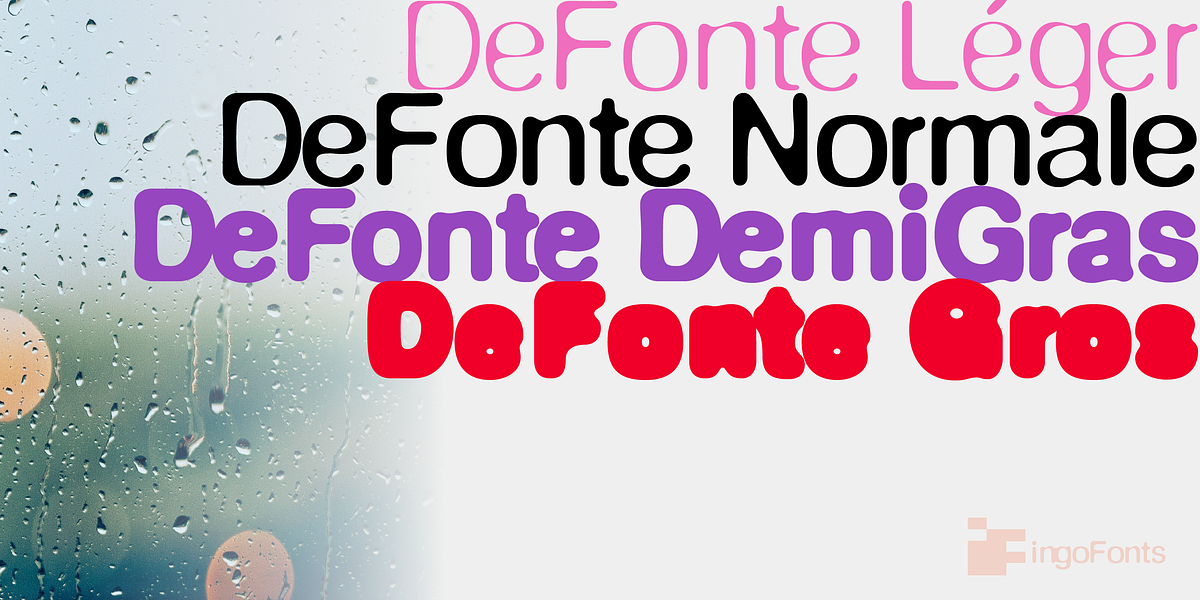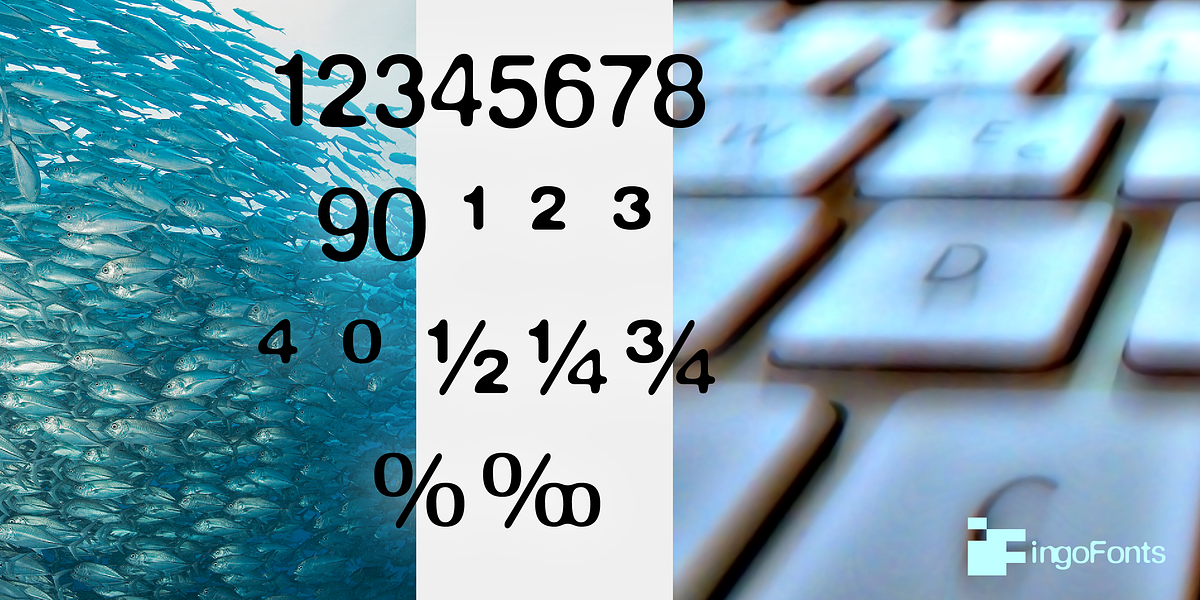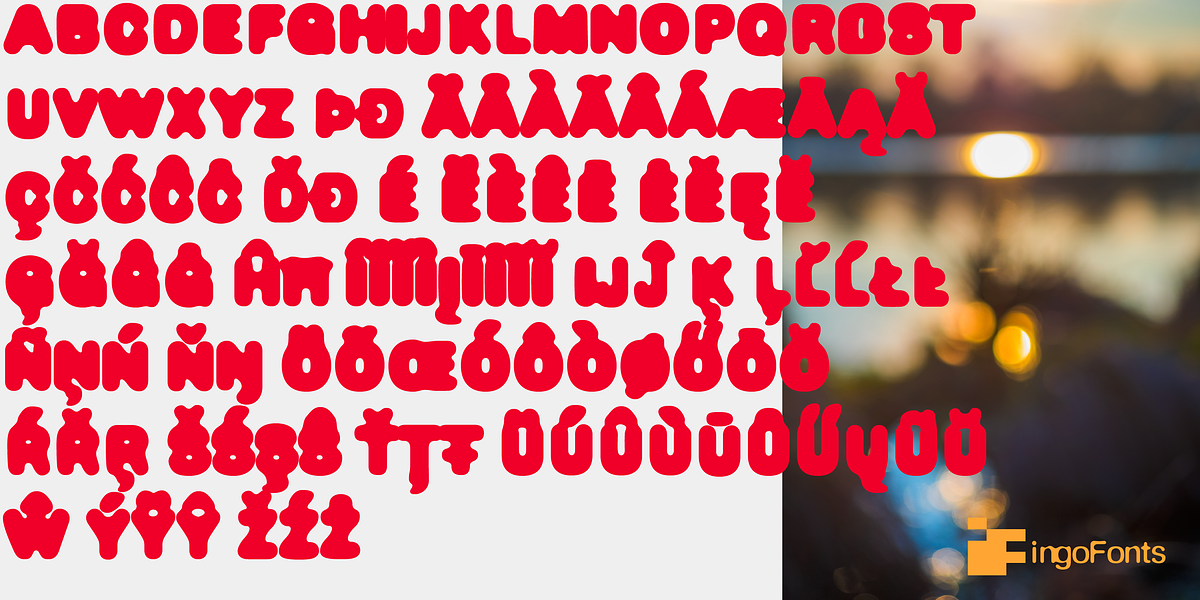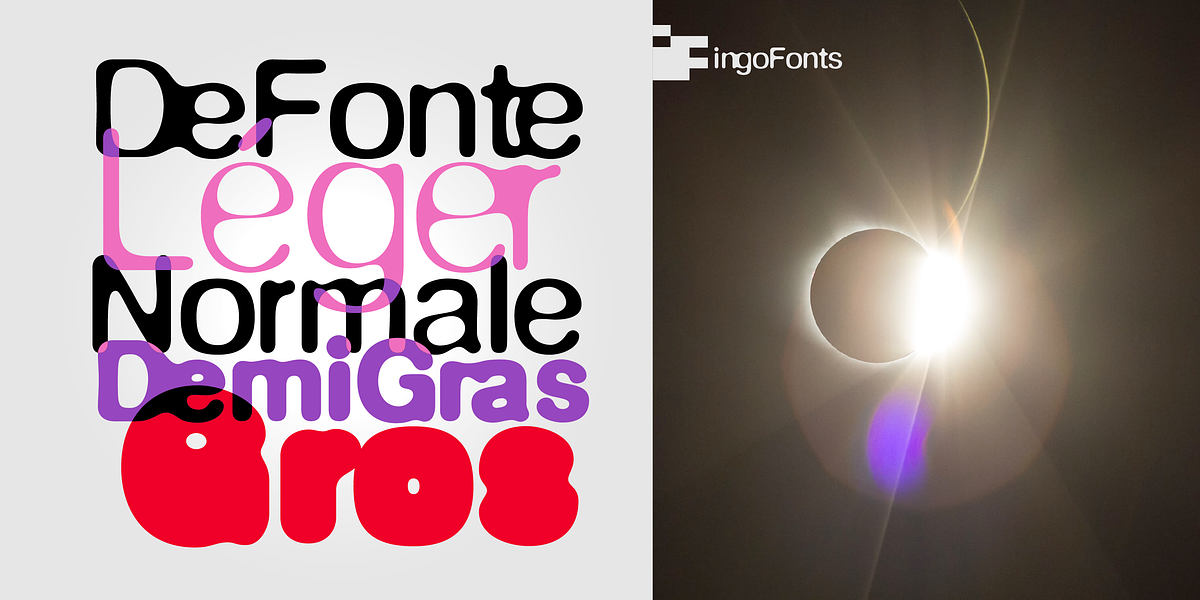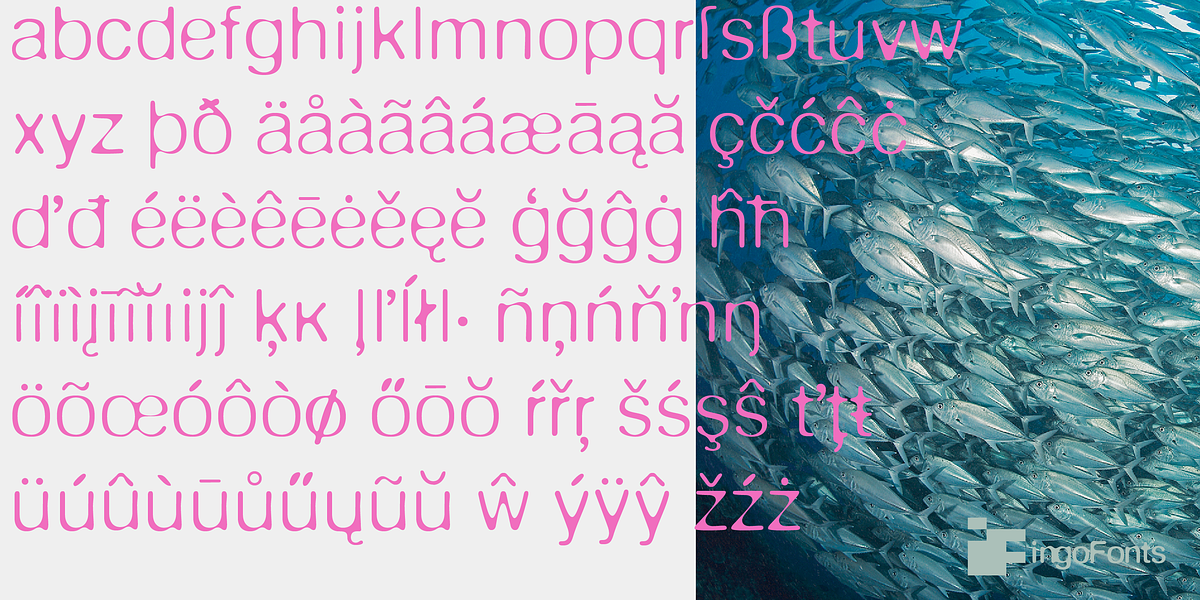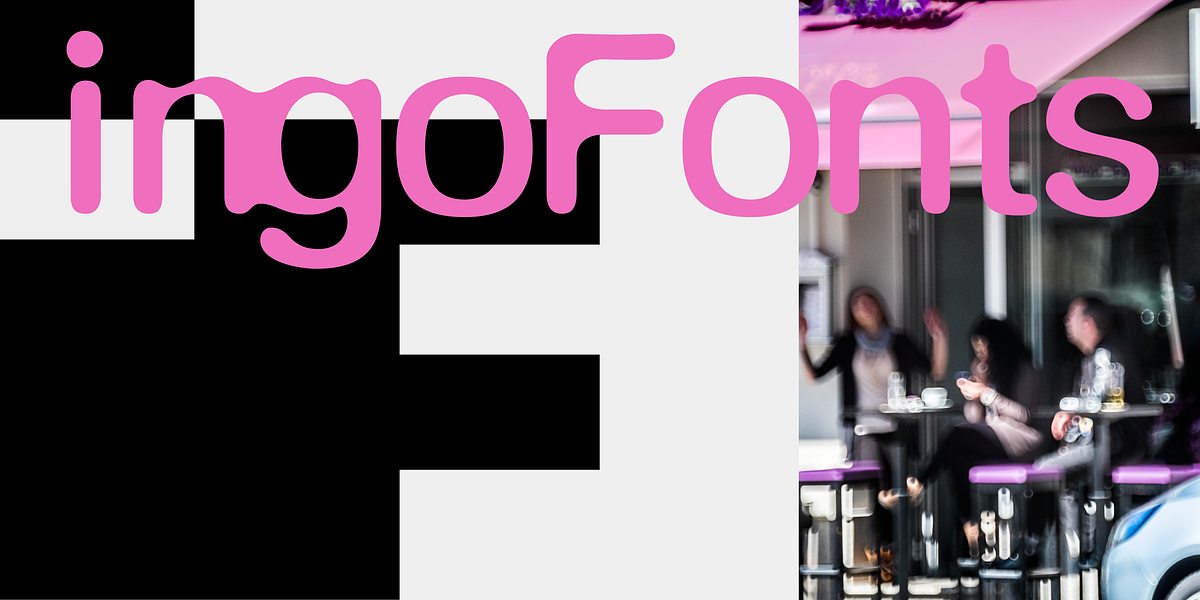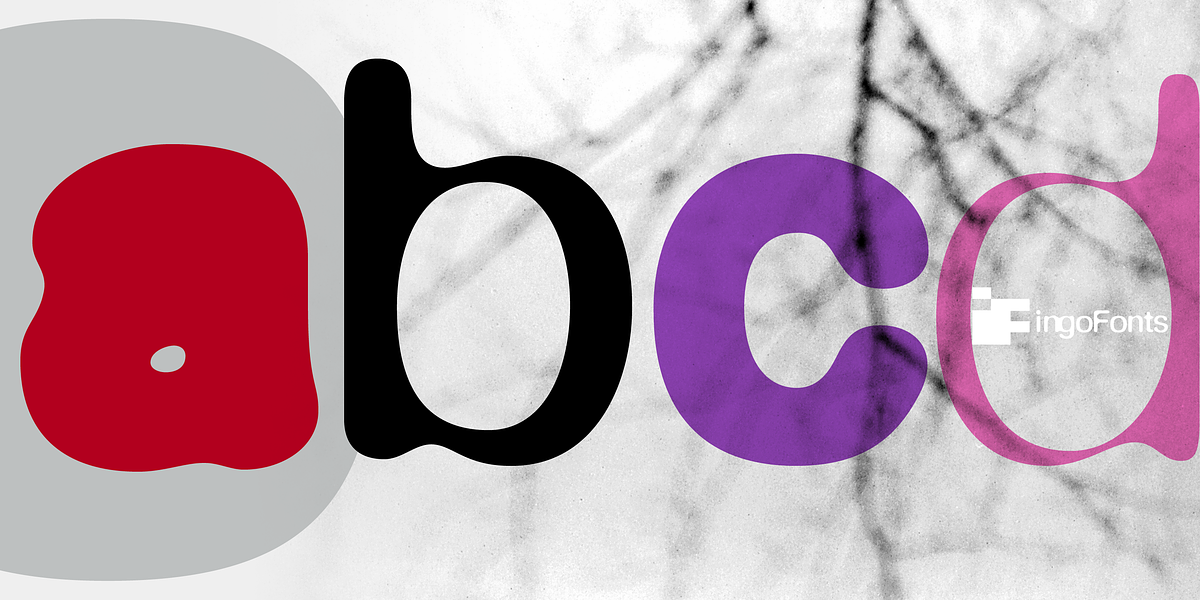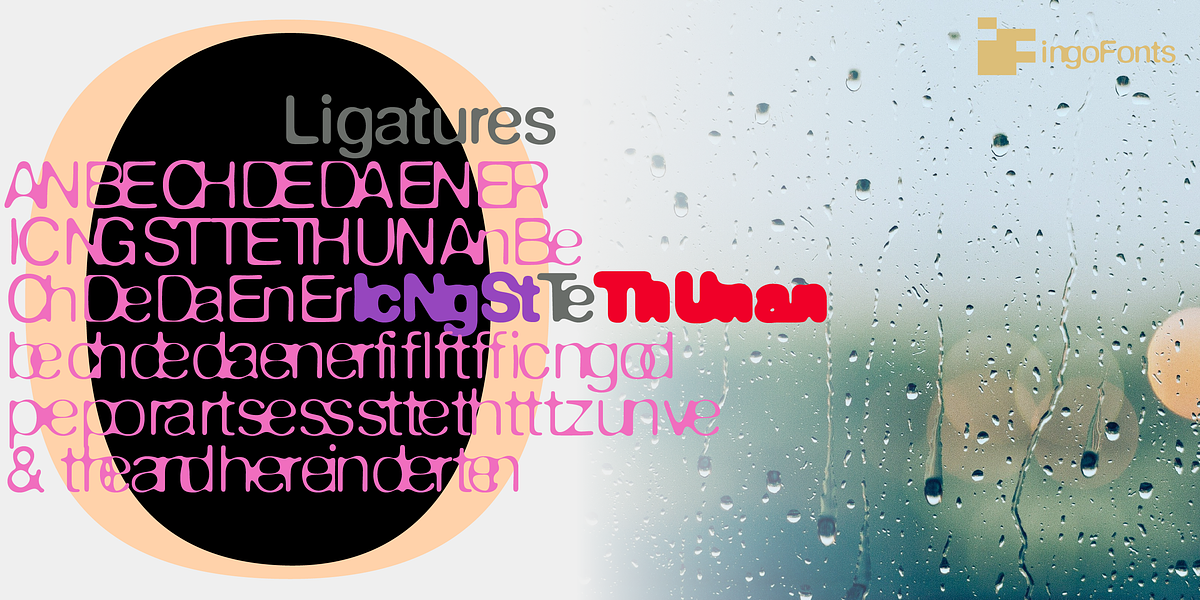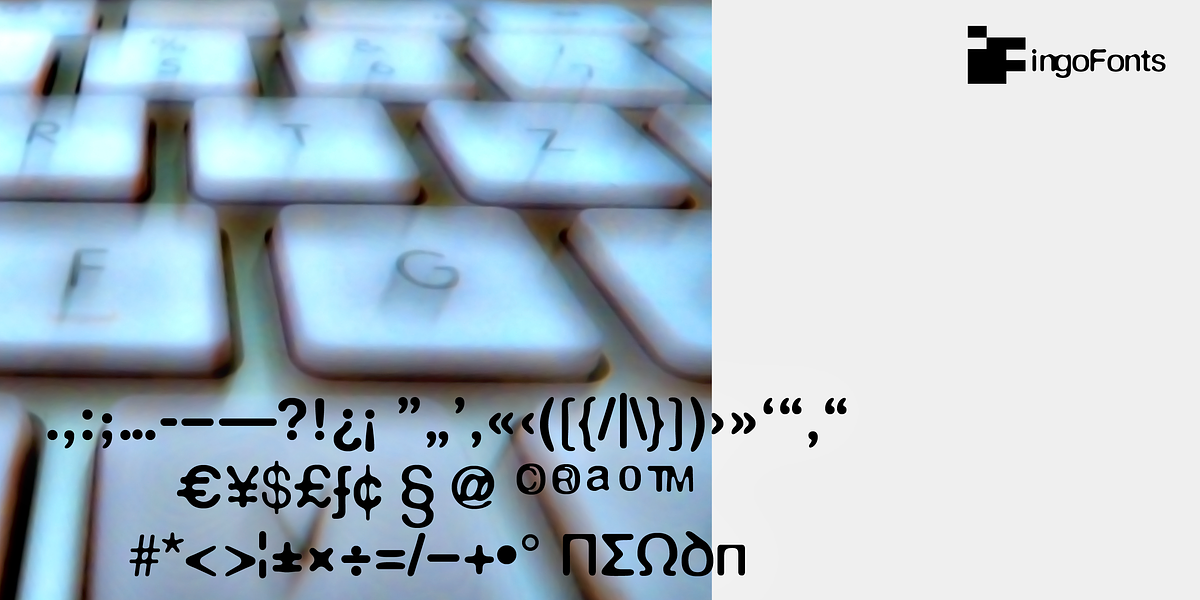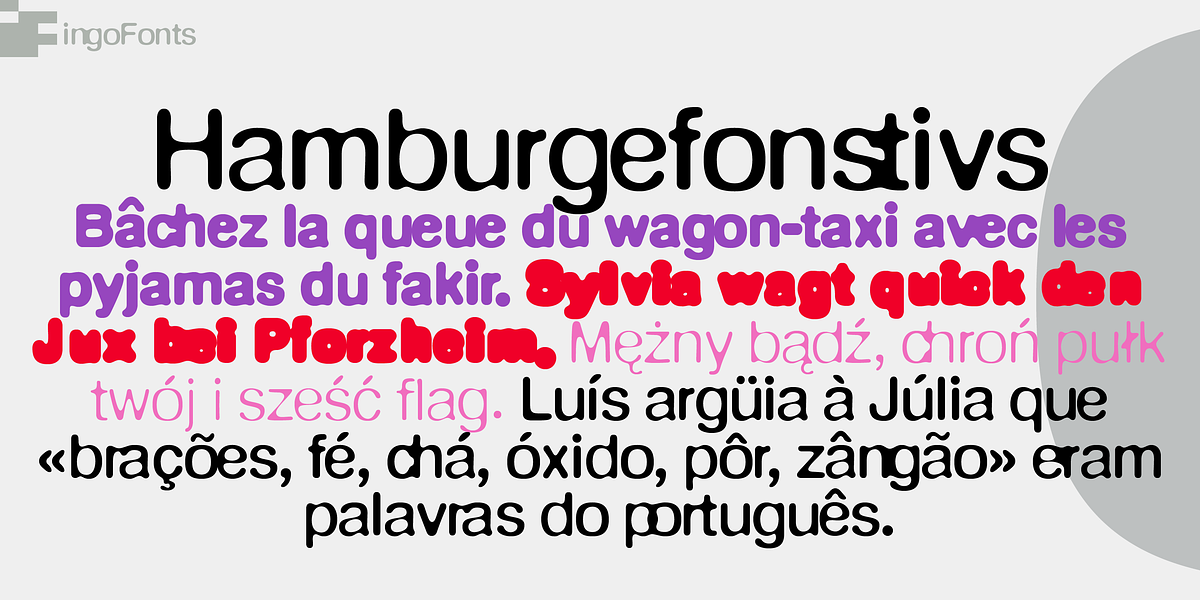
DeFonte Plus
DeFonte is a unique display sans serif font inspired by Helvetica. Its defining characteristic is a simulated photographic blur effect achieved through distorted strokes and rounded edges. This effect is more pronounced in lighter weights, where thin lines appear to nearly break, while bolder weights feature blurred ends and corners. Despite the distortion, the font remains surprisingly legible, making it suitable for headlines, branding, and display text.